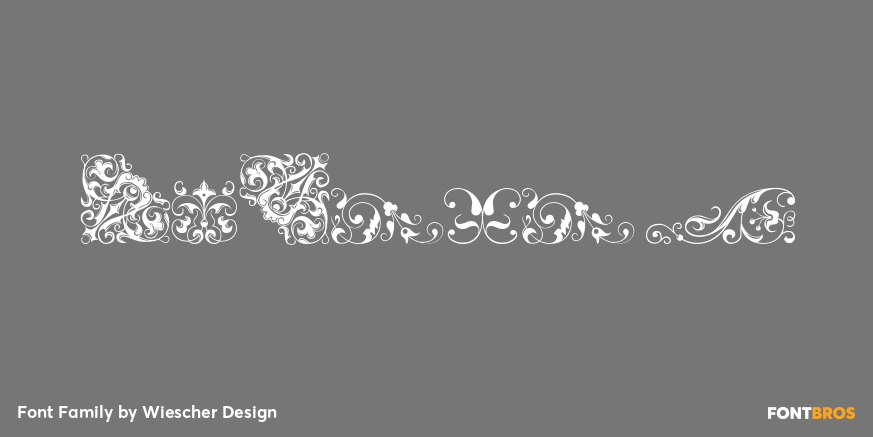
Ornata B
About Ornata B
Ornata B is the second of a series of old ornaments that I am trying to save from oblivion. I am not just scanning these, I am completely redesigning the ornaments from scratch, thereby eliminating imperfections. These ornaments have been first designed…